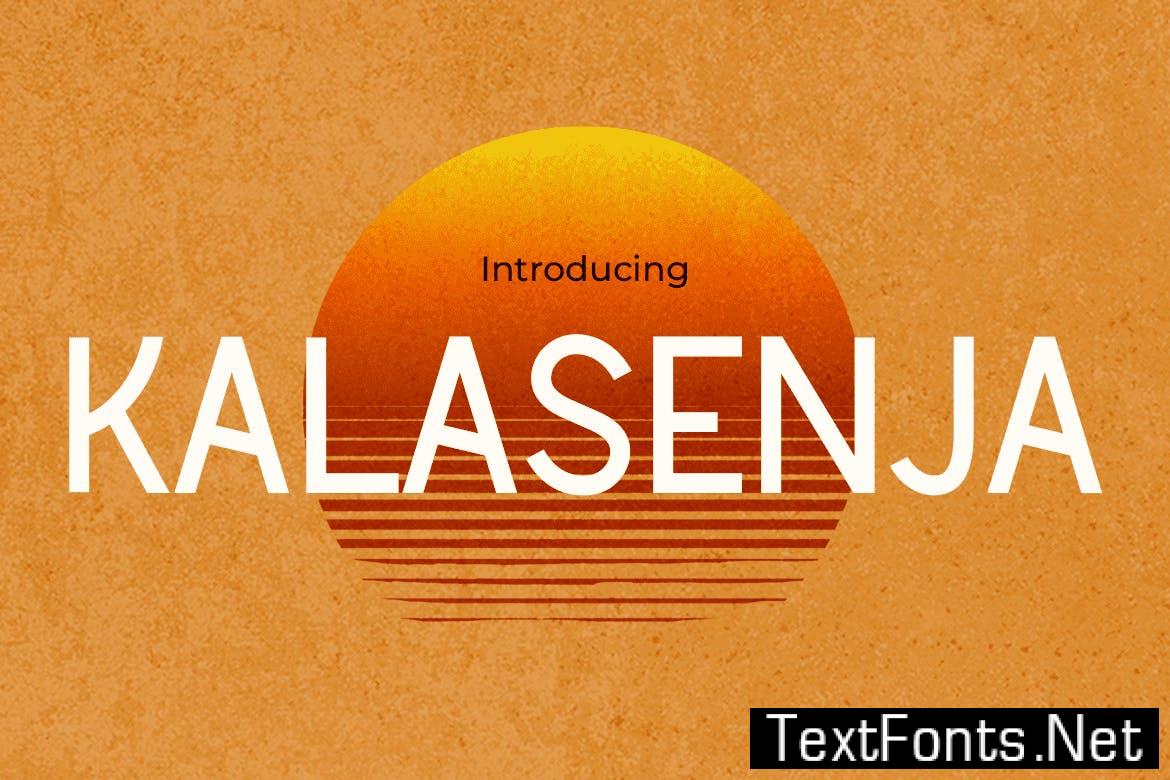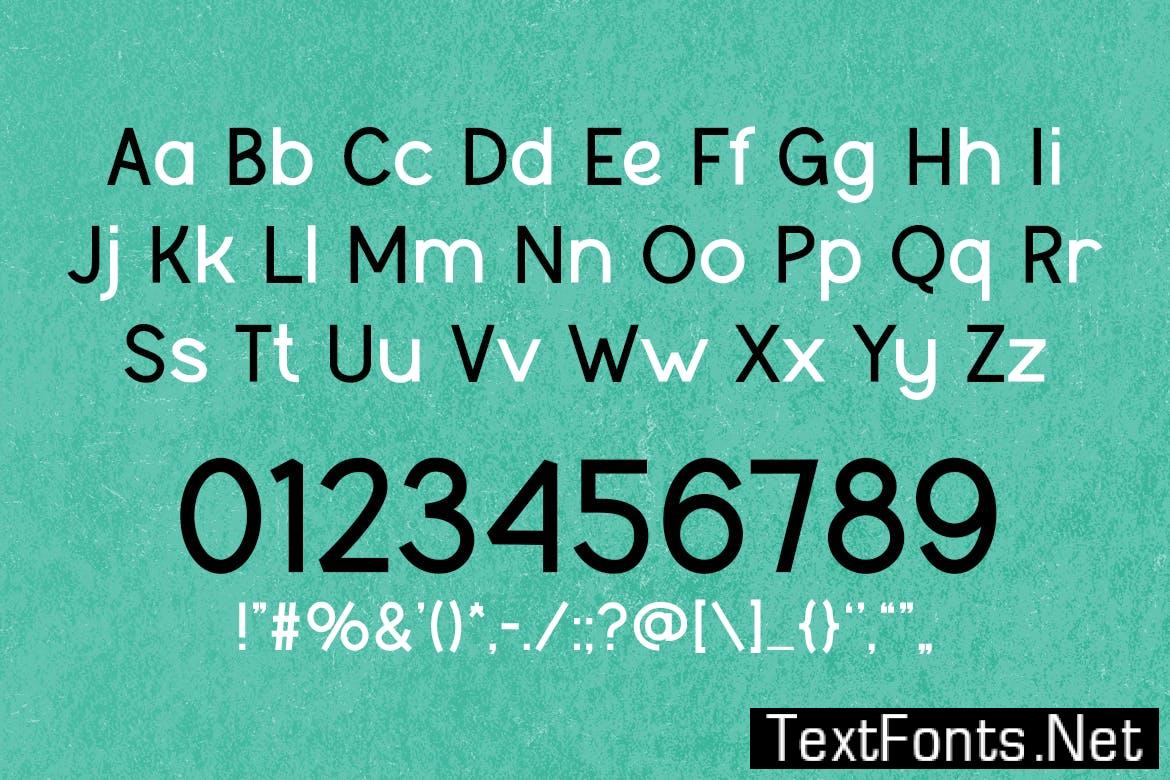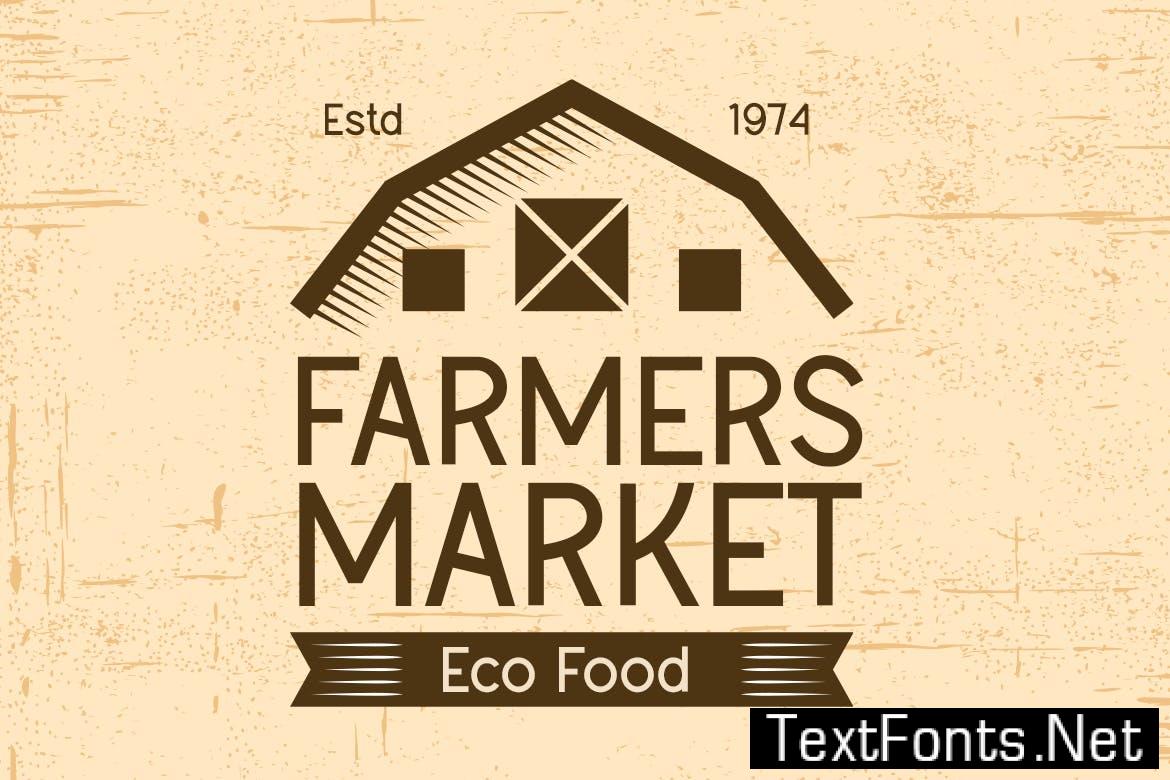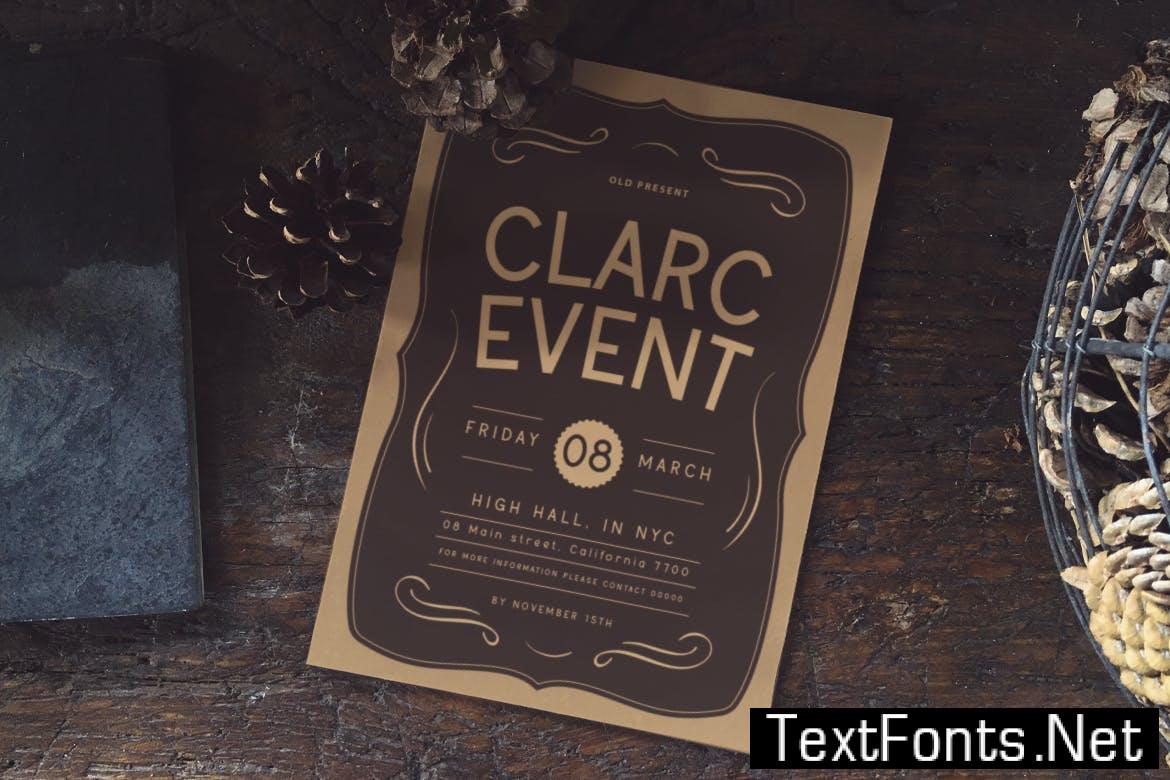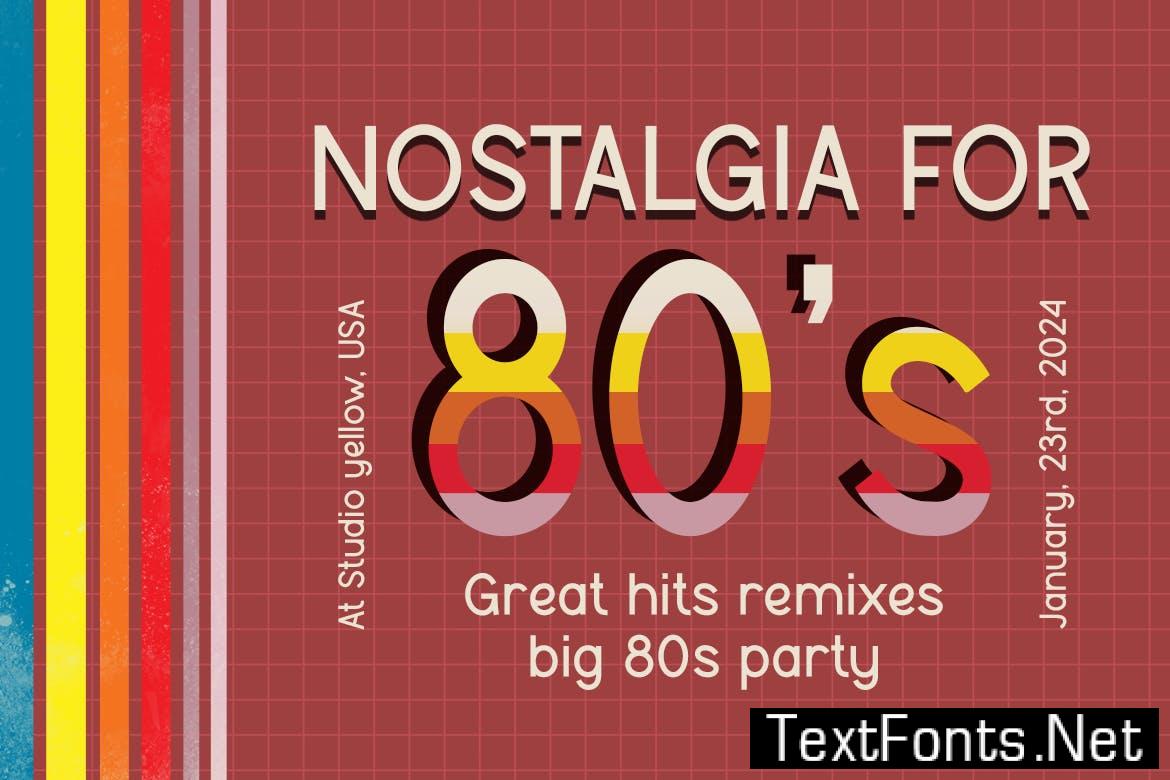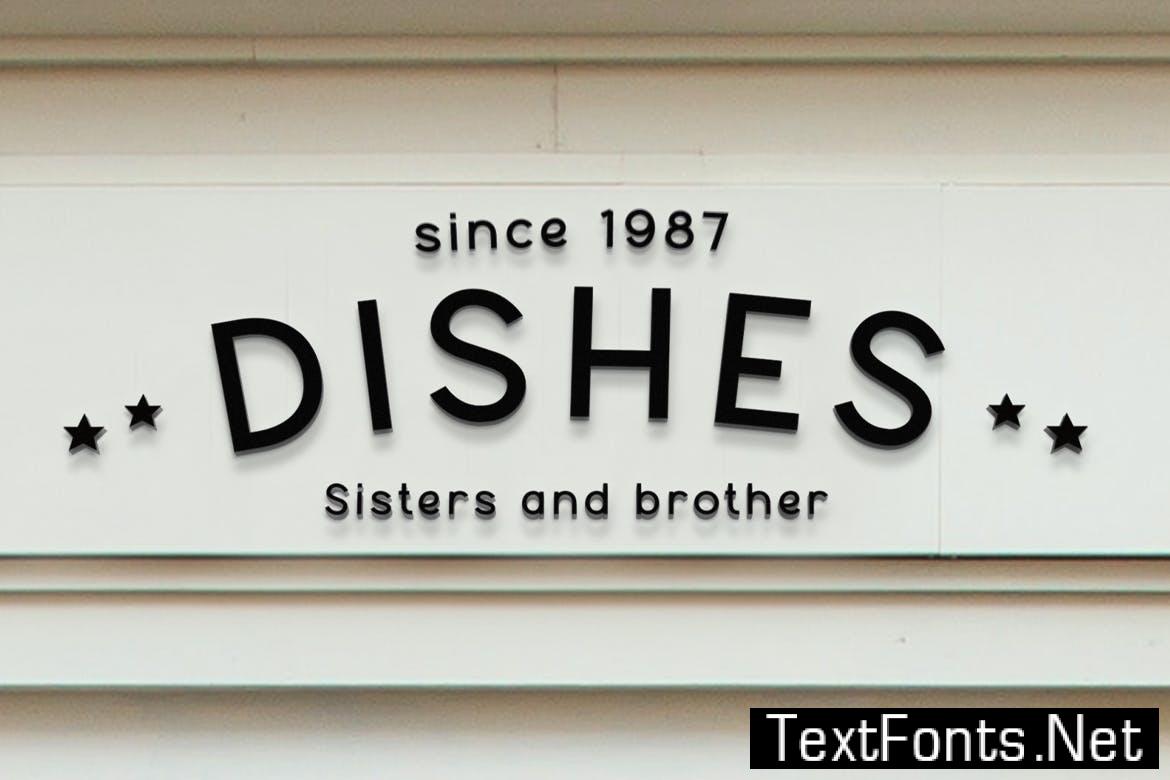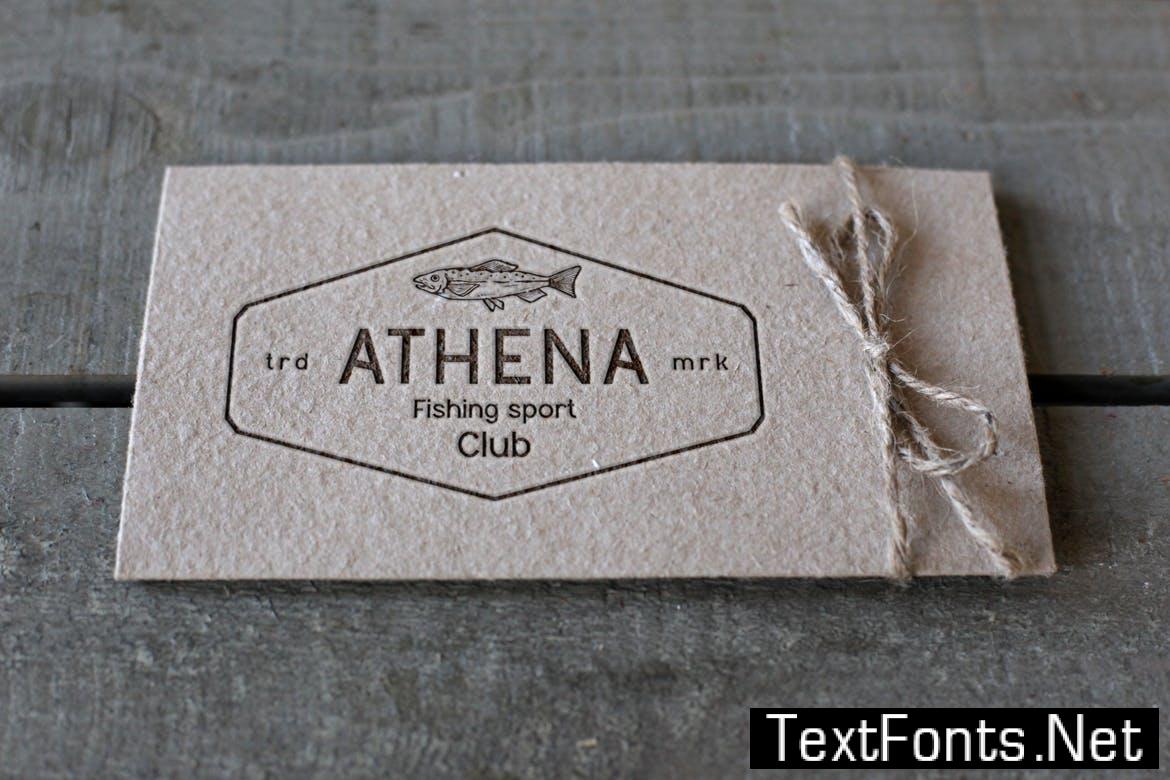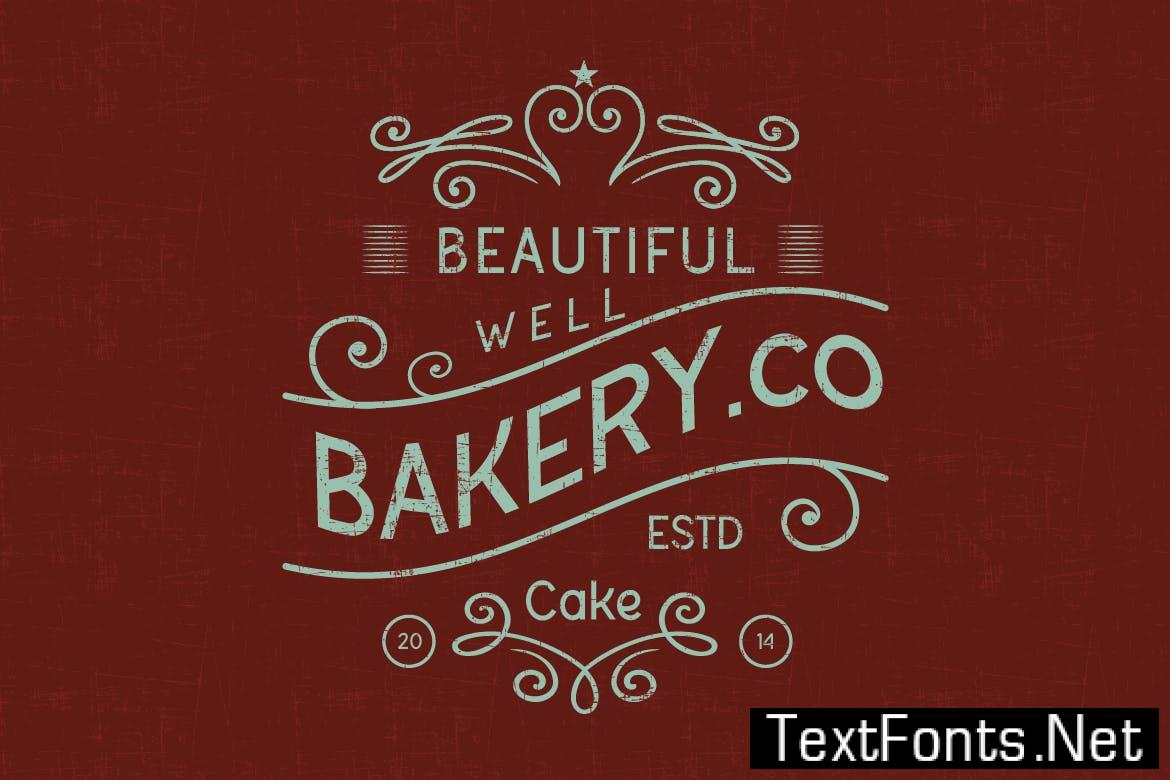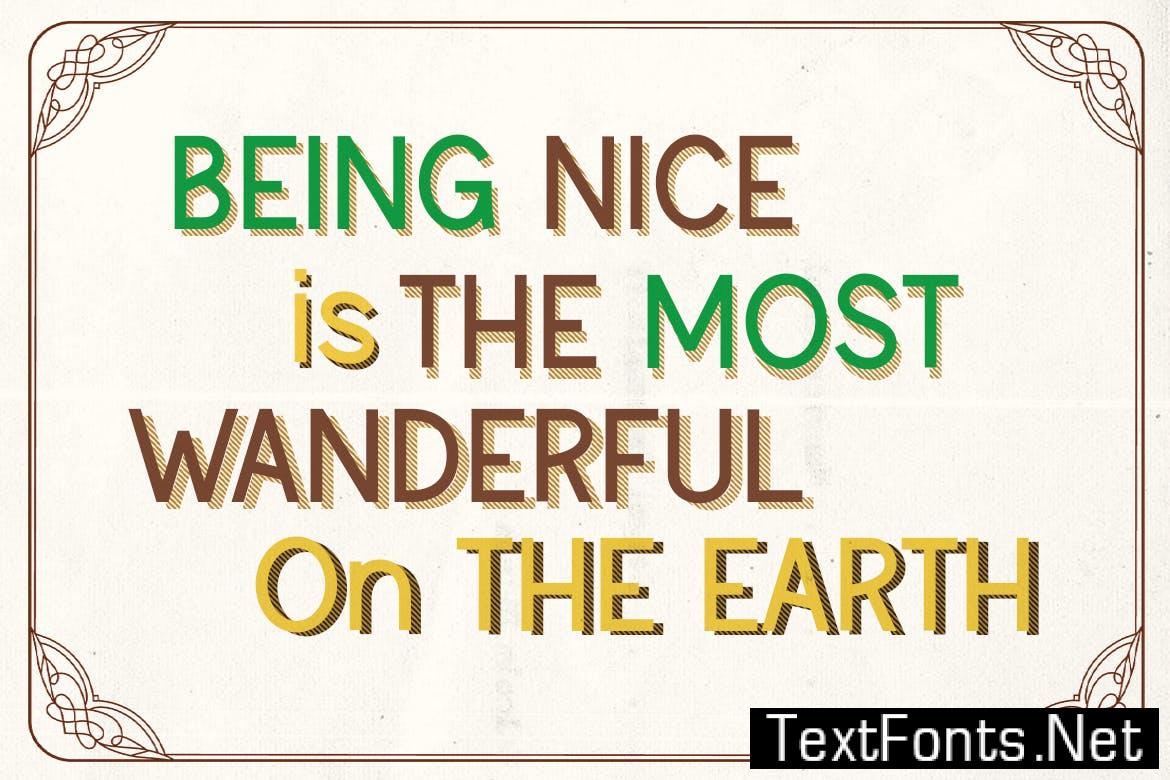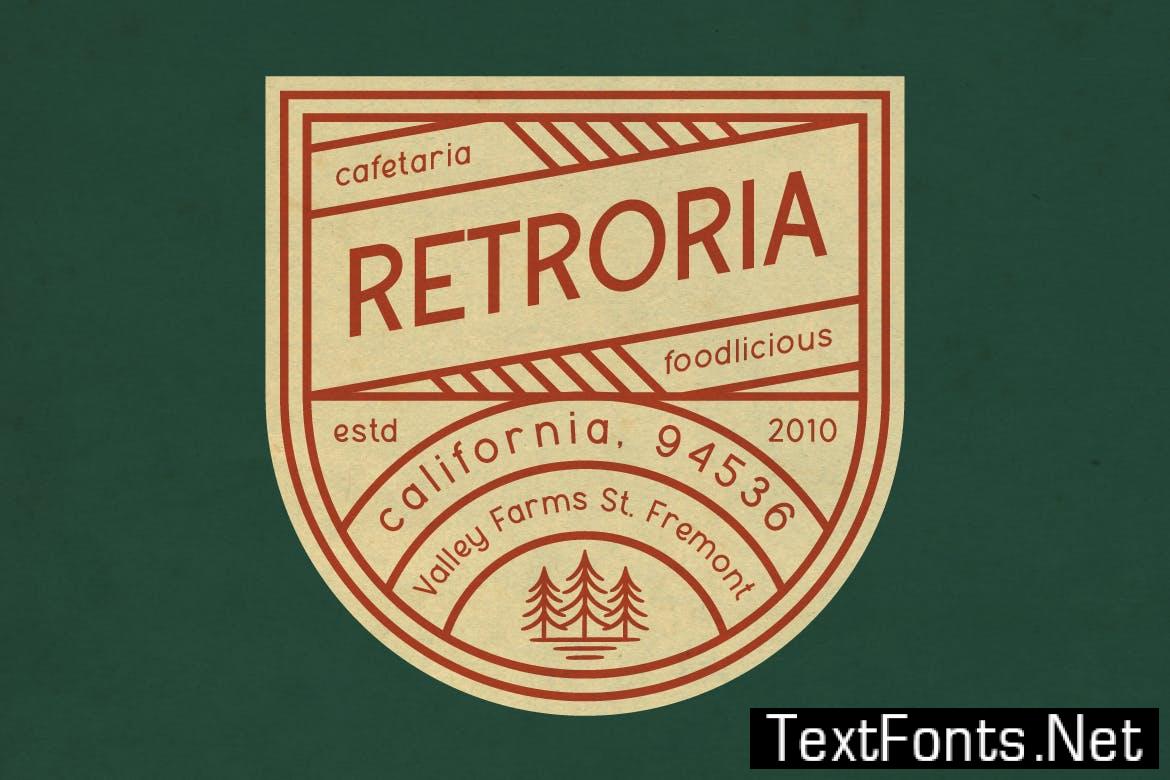
Kalasenja – Retro Sans Serif font 8P8JYCM
Kalasenja is a sans-serif font that masterfully combines retro style with modern simplicity, offering a clean and versatile design suitable for a wide range of creative applications. Perfect for those seeking a touch of nostalgia with a contemporary twist, this font is ideal for creating striking logos, engaging posters, and memorable branding. Kalasenja enhances quotes with its unique retro flair and provides a distinctive touch to invitations that captivate and charm. Its clean lines make it suitable for packaging, while its retro influence brings a timeless elegance to covers and advertising materials. From events to headlines, Kalasenja ensures your messages stand out with style and clarity, making every word count.